Through subtle adjustments, graphic designers can make simple images beautiful and memorable. Poppie Pack, a senior graphic designer at Canva, created 50 excellent graphic design tips communicated with beautiful images that show exactly why those tips work so well. We’ve selected 14 of our favorites to share with you.
For the layman, these images will throw some light on how graphic design decisions are made and how imperceptible some of them may be to the untrained eye.
Use Light And Bold Font Variants For Emphasis And Impact
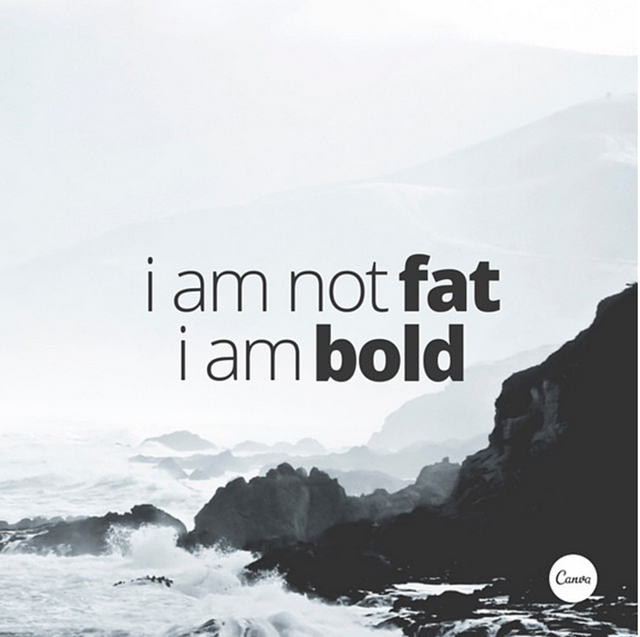
Crop Images To Let Them Act As Background Textures
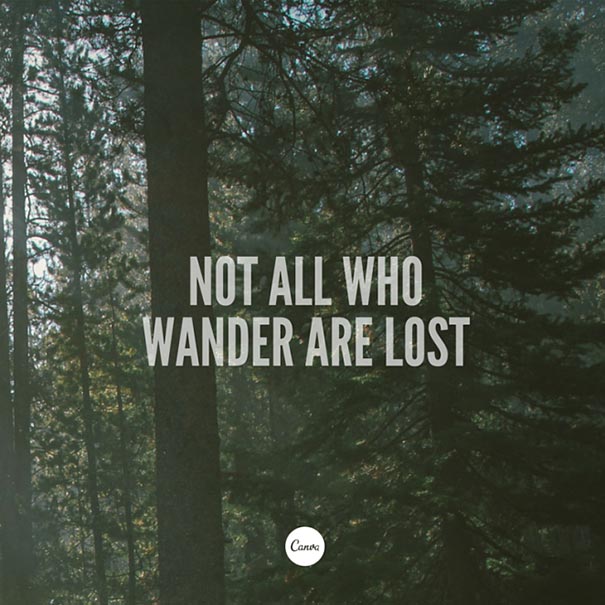
Typefaces Have Personalities Too. Make Sure You Represent Your Message With The Right Fonts
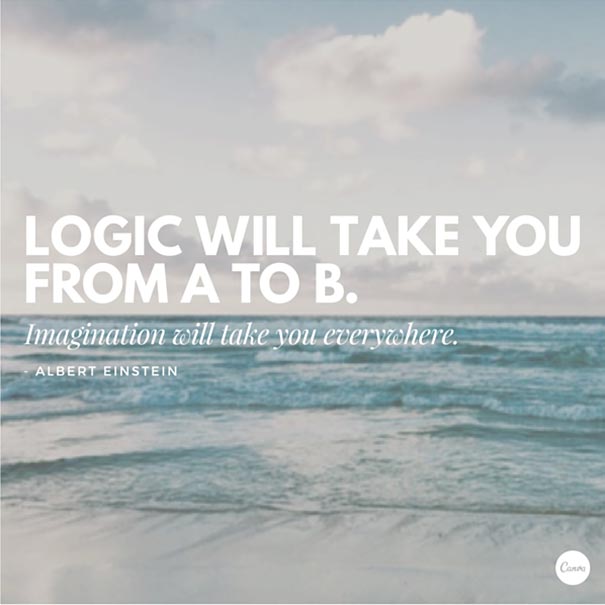
Choose A Geometric Typeface Teamed With An Elegant Serif For A Happy Pairing
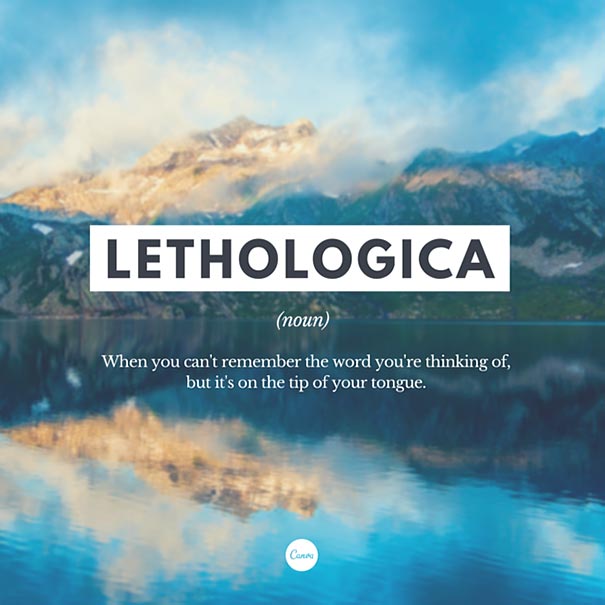
Apply A Grid To Create A Clean Composition, Using One Of The Photo Holders As A Text Box
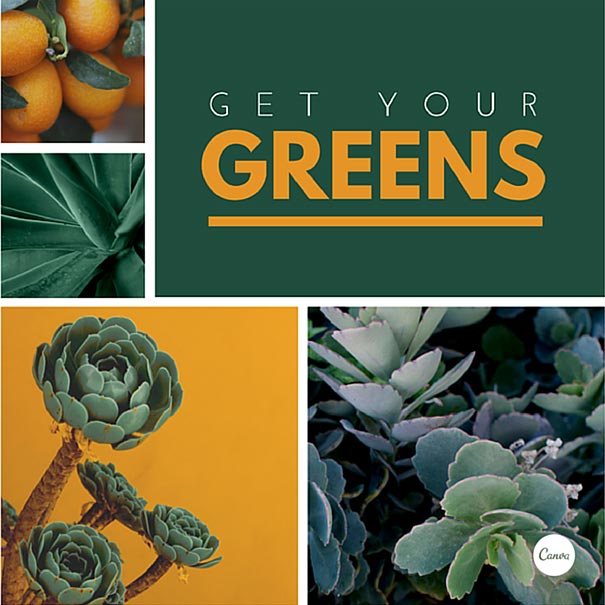
Contrasting Typefaces Make A Great Duo
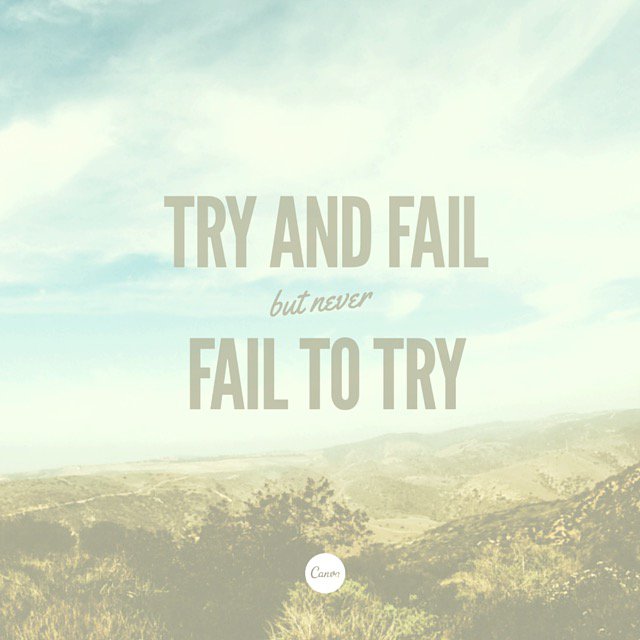
The Placement Of Text Is A Crucial Element. Make Sure To Break Your Lines Up The Way It Should Be Read
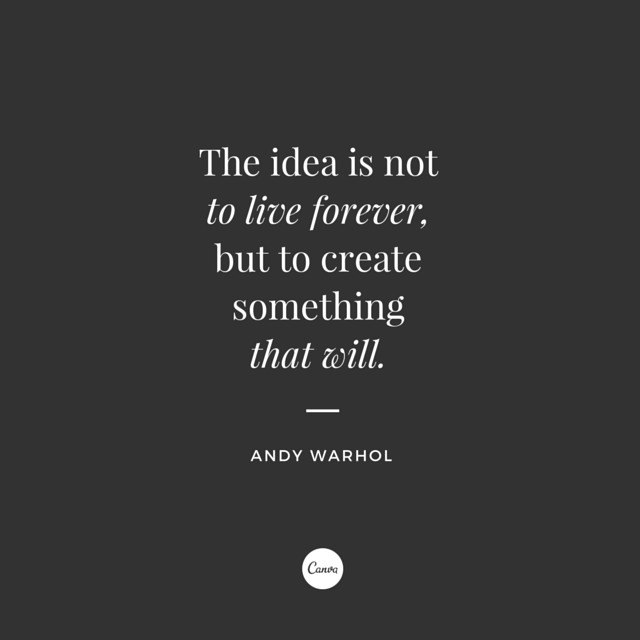
Create Clever Compositions By Letting The Features Within Images Guide Where To Place Your Type
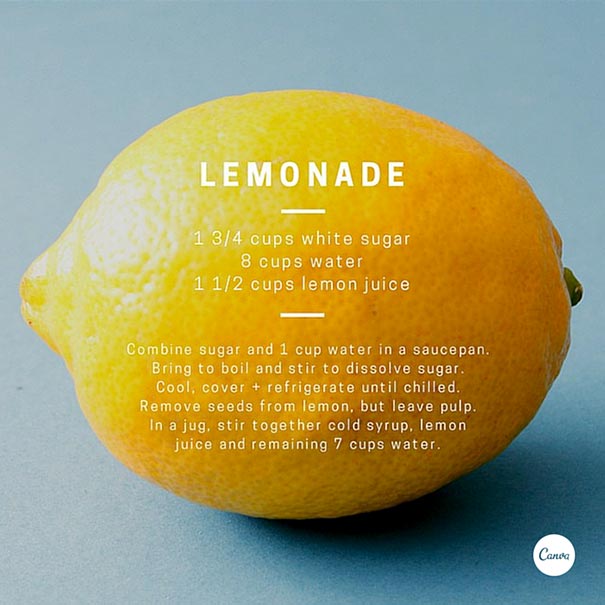
Use Shapes To Create Contrast And Offset Your Text From Your Background Image
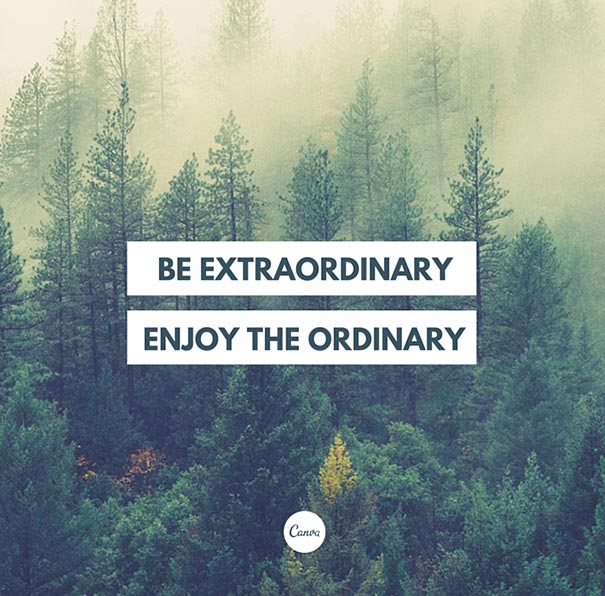
Make Beautiful Collages With Your Favorite Photos Using Grids, Ensure To Apply The Same Filter To Each Image For Consistency
Apply A Tint To Your Image The Same As Any Block Color In Your Design For Consistency
Aesthetics! Composition! Adjust All The Elements In Your Graphic So They Are On Corresponding Angles
Use The Combination Of A Tint And X-process To Create Two-tone Filter Effects
Use Areas With Clear Space In Your Images For Creative Ways To Include Text
Use Strong, Geometric Typefaces To Amplify Your Message.